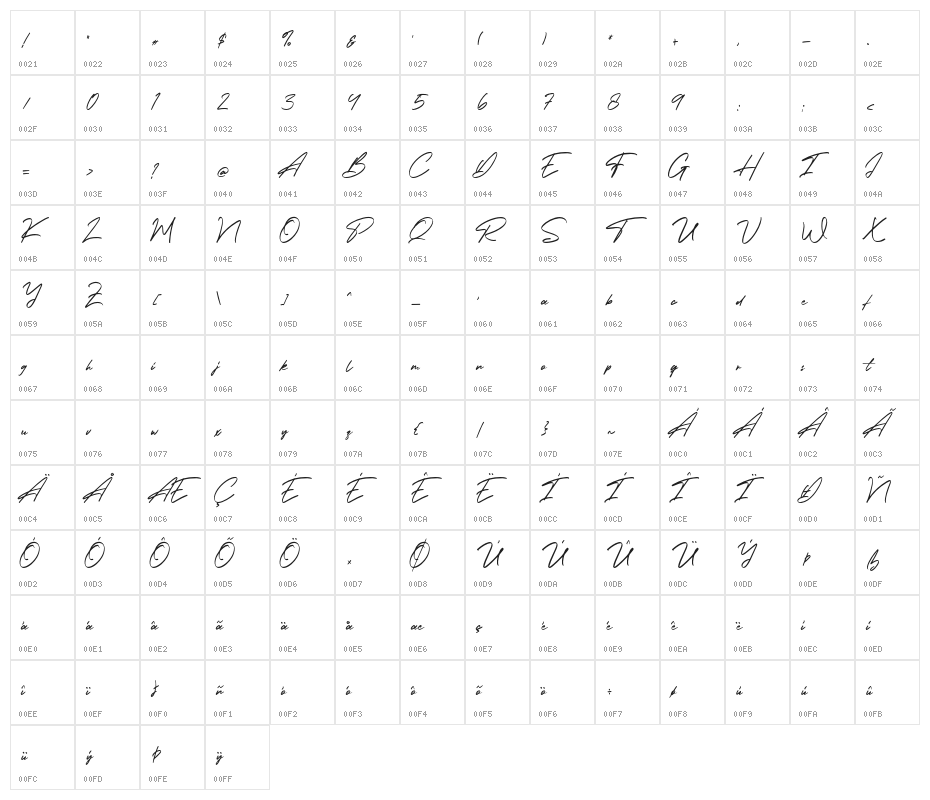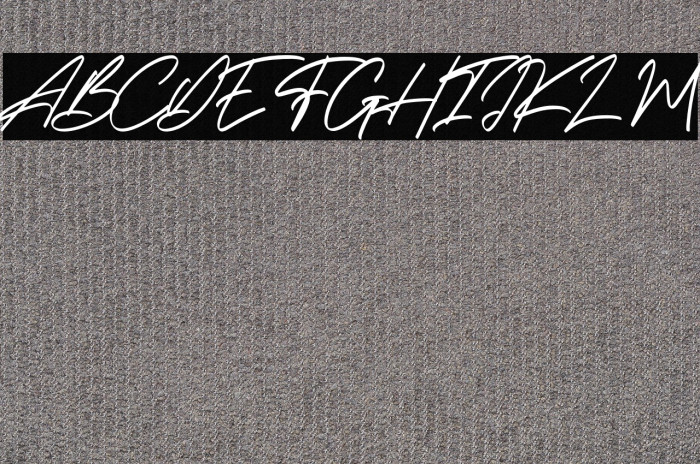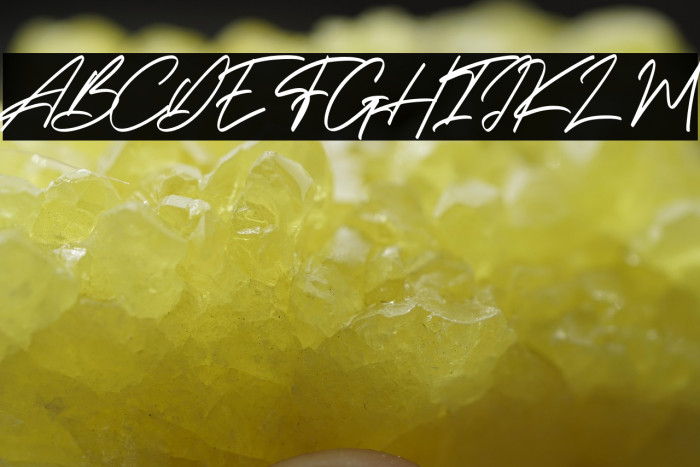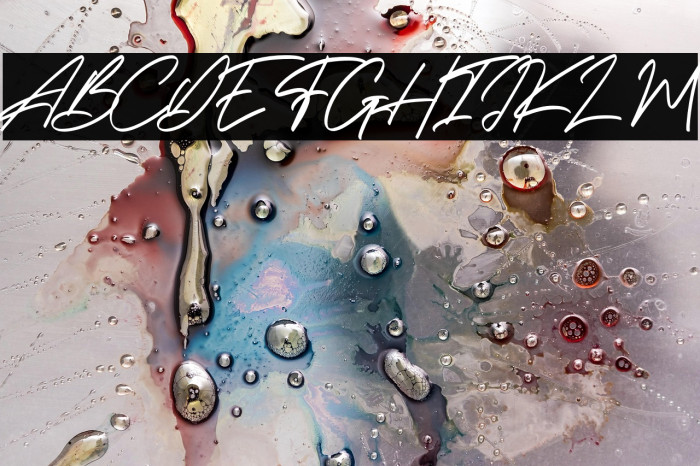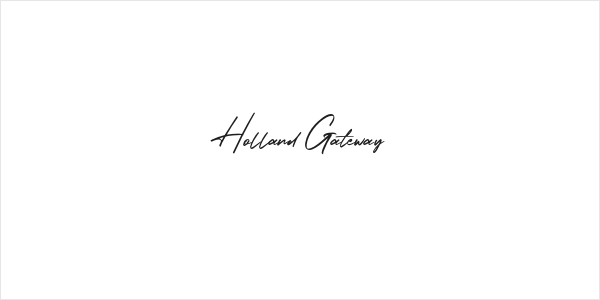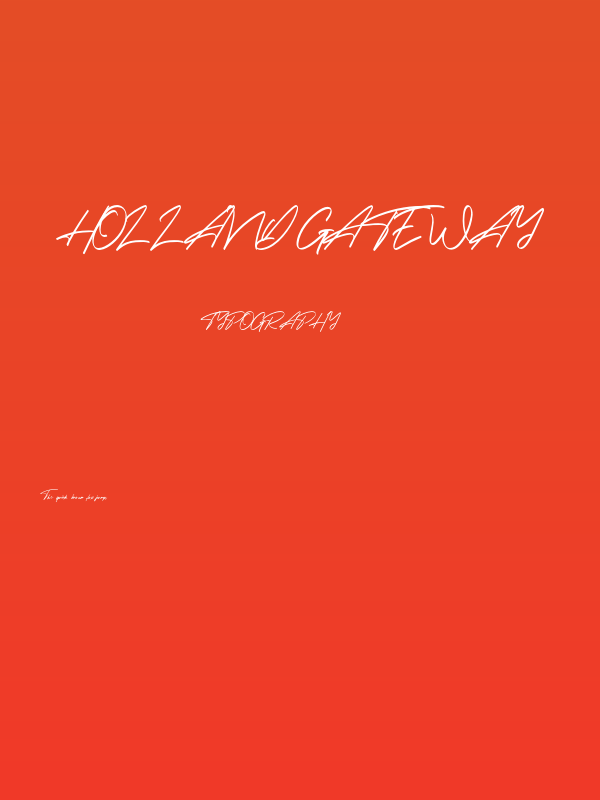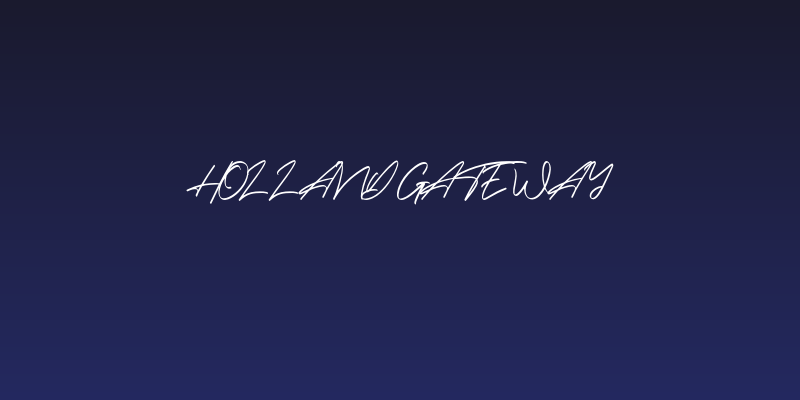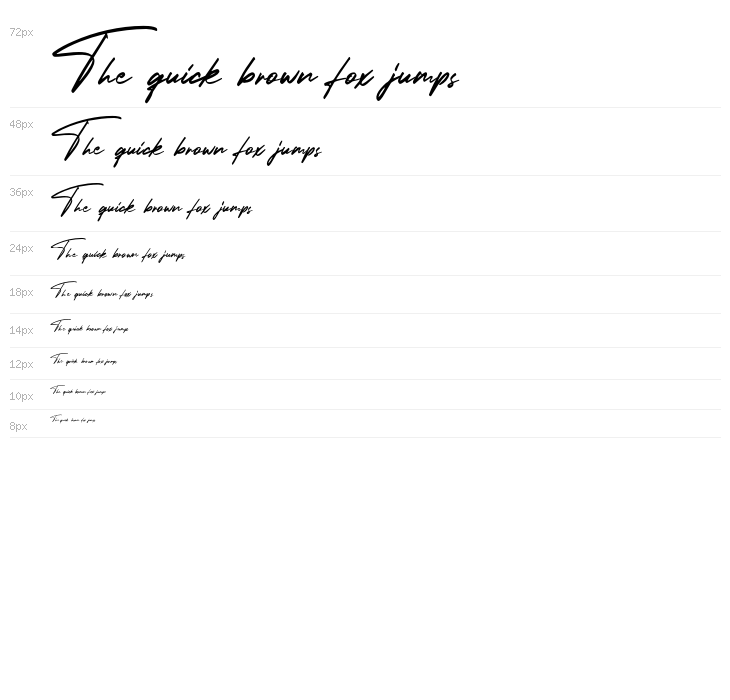
Holland Gateway Font
Holland Gateway Description
This font exudes a dynamic and elegant script style, characterized by its fluid, cursive strokes that mimic the natural flow of handwriting. The uppercase letters are bold and sweeping, with a sense of movement that adds a touch of sophistication. The lowercase letters maintain a consistent style, offering a seamless transition between characters. Numbers and special characters are crafted with the same attention to detail, ensuring a cohesive look throughout. The overall appearance is both stylish and legible, making it suitable for a variety of design applications.
| Proposed Projects | Ideal for wedding invitations, branding, logos, and elegant stationery. |